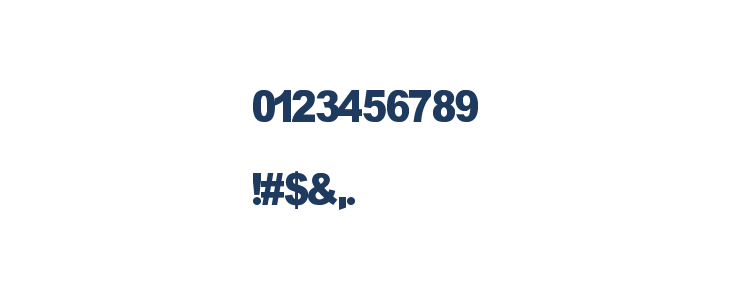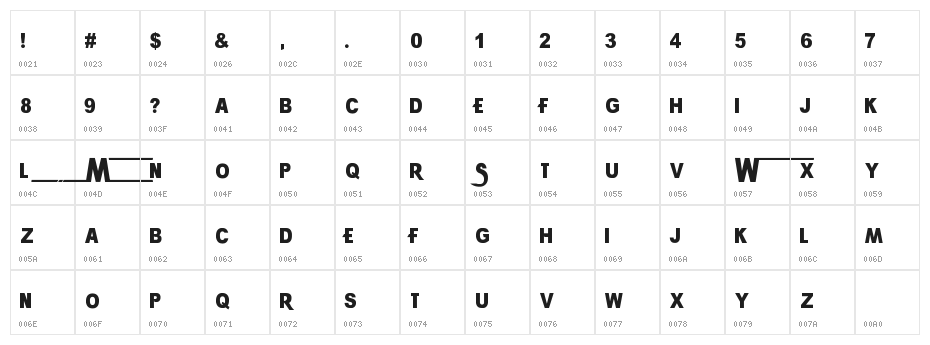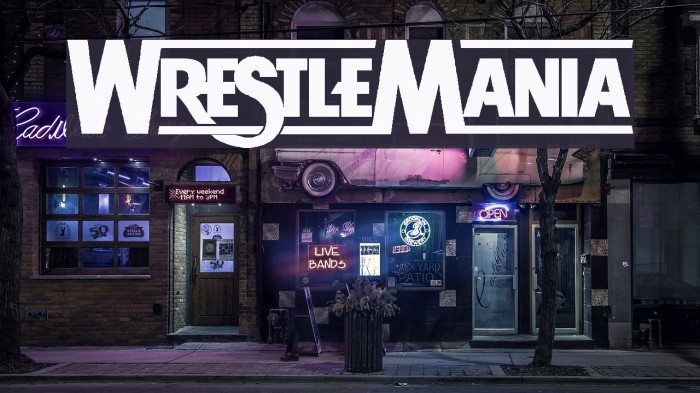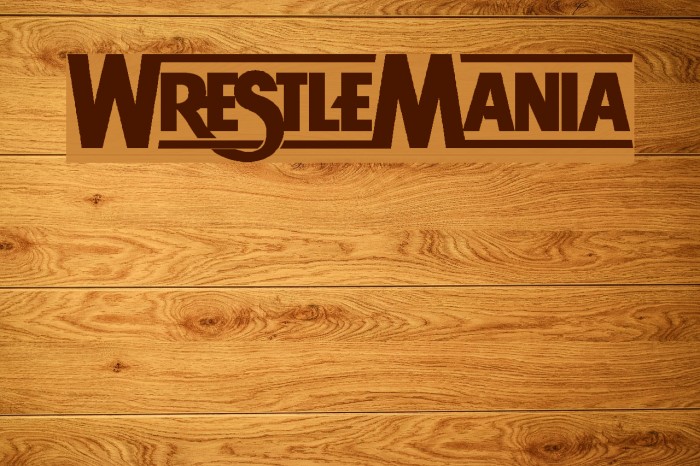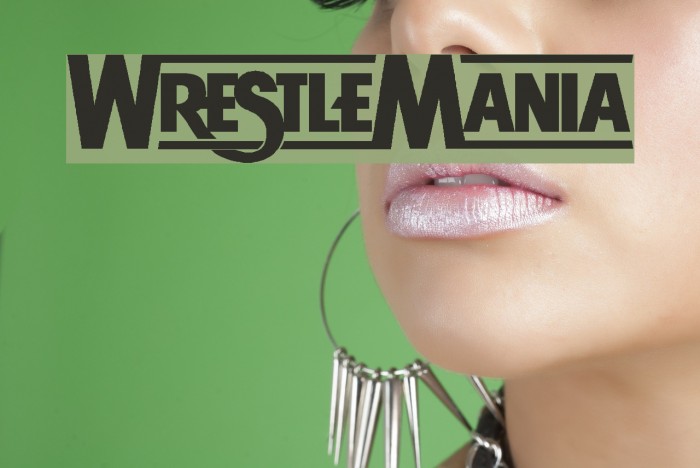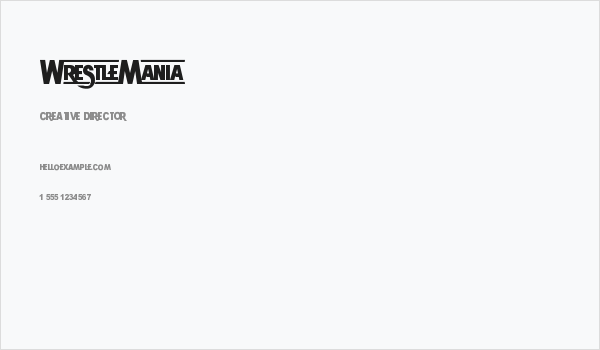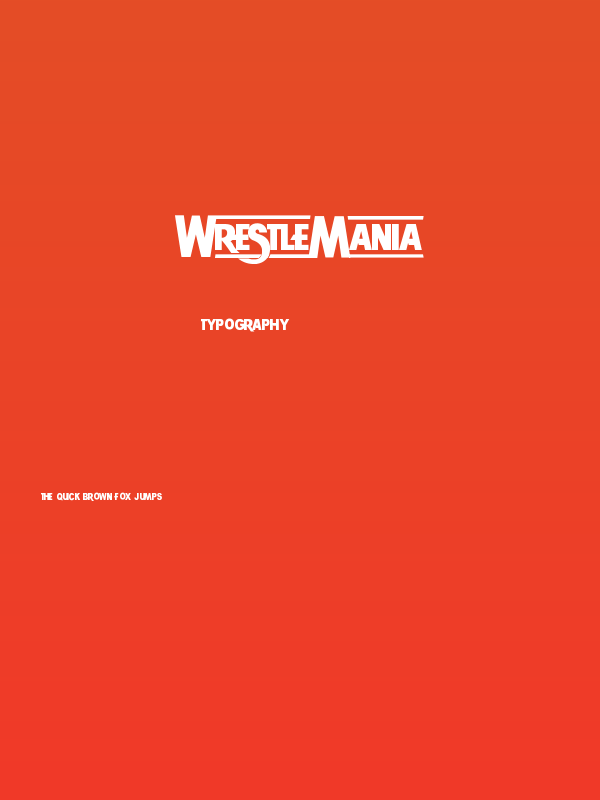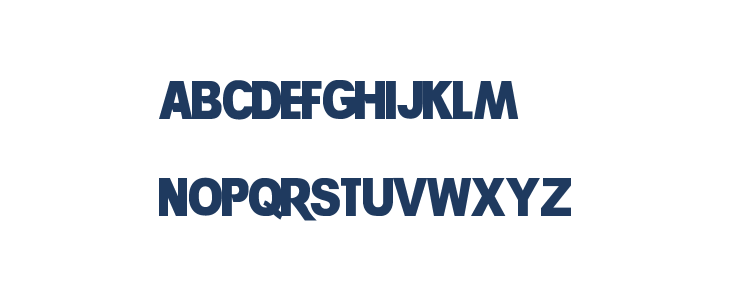
WRESTLEMANIA Font
WRESTLEMANIA Description
This font is bold and impactful, characterized by its thick, heavy strokes and strong presence. The uppercase letters are particularly dominant, with some characters featuring unique design elements, such as the extended horizontal lines on the 'M' and 'W'. The font conveys a sense of strength and power, making it ideal for attention-grabbing headlines. The numbers and special characters maintain the same boldness, ensuring consistency across all uses. The overall style is modern and assertive, suitable for projects that require a commanding visual impact.
| Proposed Projects | Ideal for sports branding, event posters, and any project requiring a strong, attention-grabbing typeface. |